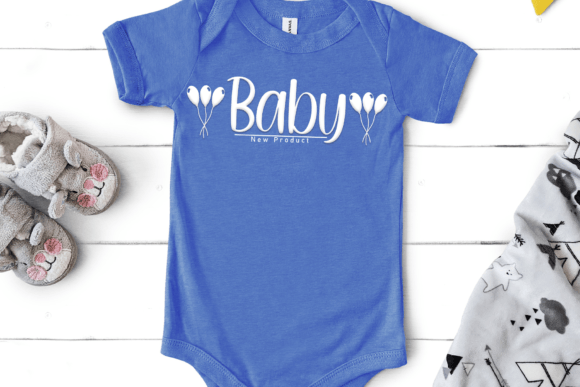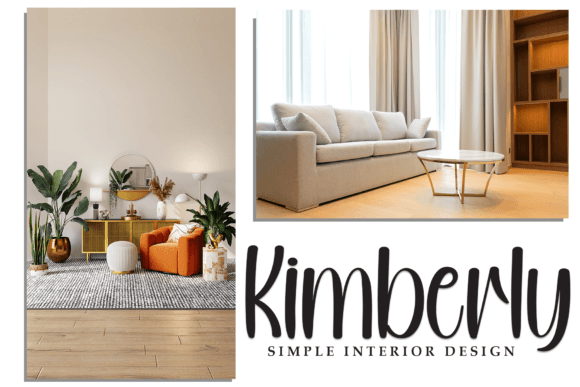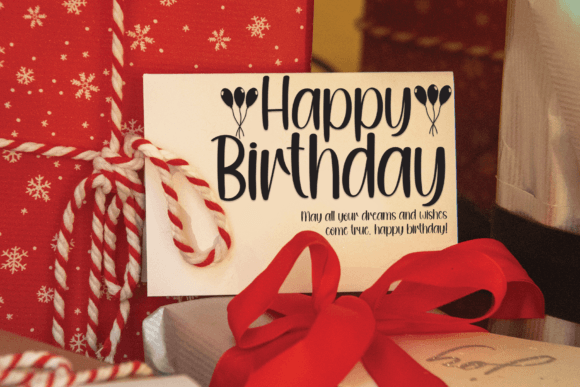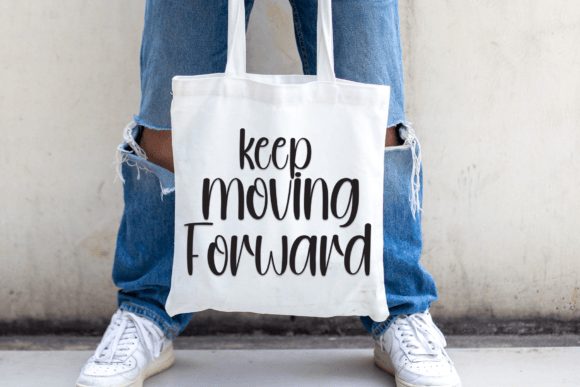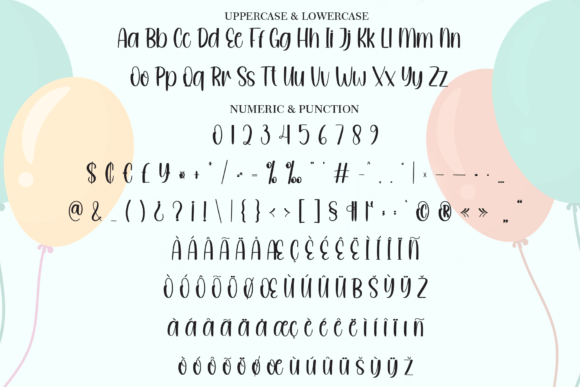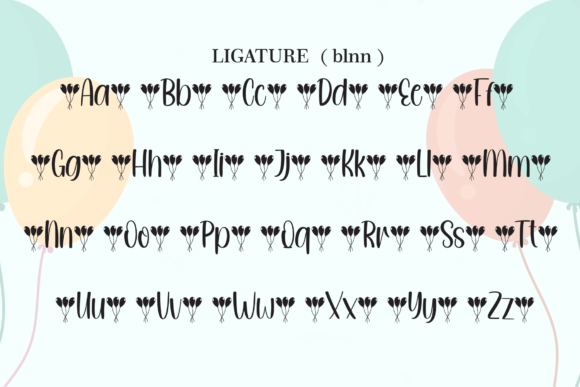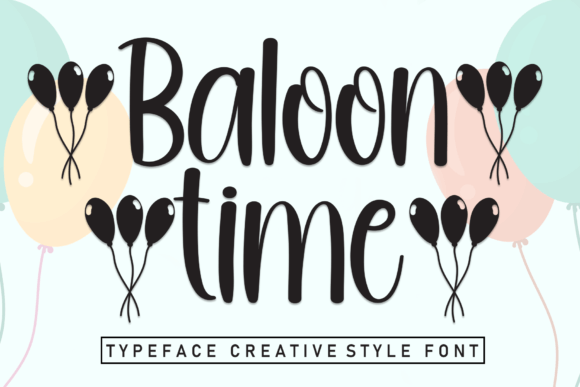
Unleashing Whimsy with Baloon Time Font
Have you ever stumbled upon a font that instantly sparks a creative idea? For me, it was while browsing through a design portfolio that I discovered Baloon Time Font. The moment I saw its playful, handwritten style, I knew I had to learn more about it. As a designer, I’m always on the lookout for unique fonts that can add a personal touch to my projects.
Baloon Time Font is a charming and approachable font perfect for adding a dash of whimsy to your designs. Its fresh and casual vibe makes it ideal for writing wedding invitations, greeting cards, or any other project that requires a touch of warmth. Whether you’re a seasoned designer or just starting out, Baloon Time Font is a valuable addition to your toolkit.
Balloon Time Font Key Features
- Size: 256 glyphs, including uppercase and lowercase letters, numbers, and punctuation
- Unique Characteristics: Distinctive, playful balloon-inspired design with varying line widths and shapes
- Language Support: Supports multiple languages, including Latin-based alphabets, Cyrillic, and Greek
Designer Review: Baloon Time Font
As a designer, I was excited to dive into the Baloon Time Font and see if it lives up to its playful name. ✨ First impressions are that the font has a fun, whimsical feel to it. The unique letterforms and quirky details make it perfect for adding a touch of personality to your design.
- ✨ The font’s versatility is a major plus. It works well in a variety of contexts, from titles and headings to body text.
- ✨ The font’s size and weight options make it easy to customize and adapt to your design needs.
- ✨ The font’s unique details, such as the decorative flourishes, add a touch of sophistication and whimsy.
However, there are some limitations to keep in mind. ⚠️ The font’s quirks can sometimes be distracting, particularly at smaller sizes. Additionally, the font’s lack of a clear, consistent style can make it challenging to pair with other fonts.
Overall, I’d give the Baloon Time Font 4 out of 5 stars. While it’s not perfect, its unique personality and versatility make it a great choice for designers looking to add some visual interest to their work. With a bit of tweaking and careful consideration, this font has the potential to be a real showstopper.
The Balloon Time Font is perfect for:
- Creating playful and eye-catching headings
- Designing custom graphics and illustrations Alternatives to Baloon Time Font
- Use the font for the main title of the invitation, such as “You’re Invited!”
- Combine the font with colorful illustrations and graphics to create a lively and playful design
- Use the font’s bold and italic styles to add emphasis and create visual interest
- Pair the Balloon Time Font with bright and bold colors to create a fun and festive atmosphere
- Use illustrations of balloons, confetti, or other party decorations to match the font’s playful style
- Consider adding a background image of a party scene or a colorful gradient to add depth and interest
- Use the font for the main title or heading of the stationery, such as “Love is in the Air”
- Combine the font with vintage-inspired graphics and illustrations, such as flowers, lace, or distressed textures
- Use the font’s cursive and swash styles to create a romantic and elegant look Frequently Asked Questions – Baloon Time Font